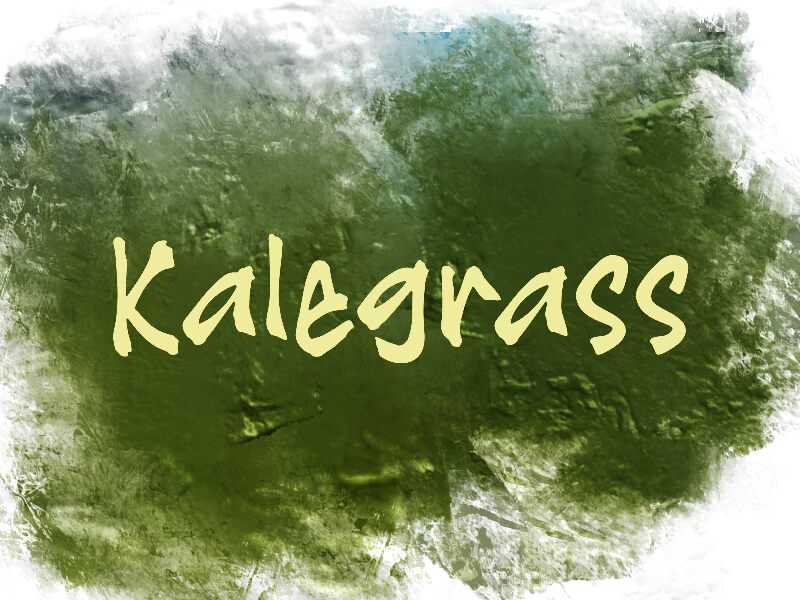
Kalegrass
Kalegrass font by wep is a free brush font that brings a lively, hand-painted energy to your layouts. Its strokes feel inky and organic, with slightly rough edges that look like they were dragged across textured paper. The letters lean and sway just enough to feel human and spontaneous, giving titles and short phrases a fresh, earthy character that doesn’t feel overpolished.
Using Kalegrass, you can add a bold handmade voice to food packaging, farmers’ market posters, nature-themed branding, social media graphics, album covers, and craft product labels. This free font shines when set large, where its brush texture can really breathe, and it pairs especially well with a clean sans serif for supporting text to keep everything readable and grounded.